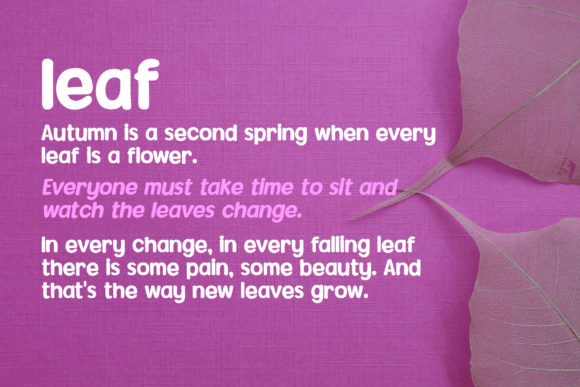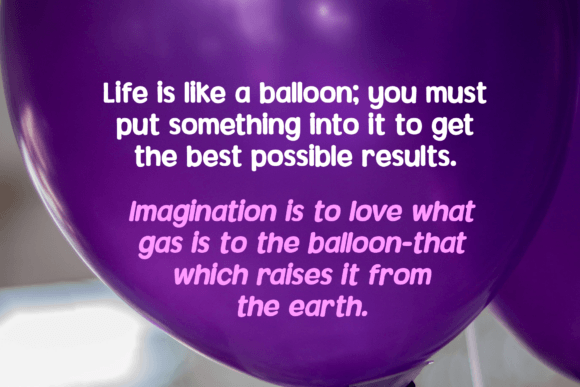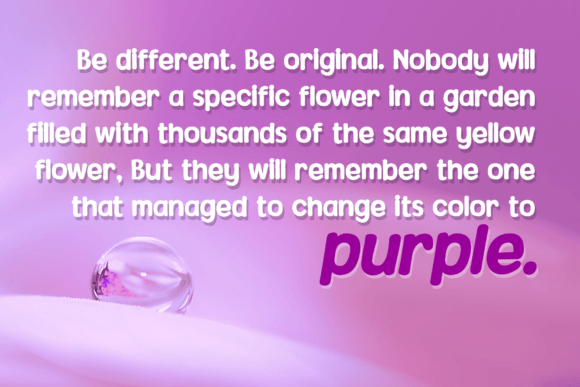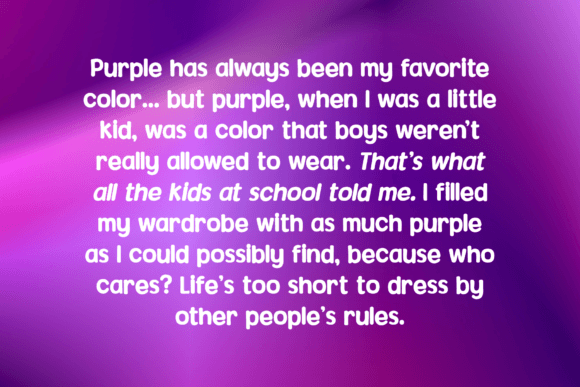
About Alvina Font
Introducing “Alvina,” a font meticulously crafted for text display purposes, drawing inspiration from handwritten styles. This font offers a perfect blend of simplicity, cleanliness, and a touch of coolness, making it ideal for creating logos, branding materials, and promotional content. “Alvina” brings a modern and robust impression to your design, making it a suitable choice for the main text or header text on websites, layout designs, and various promotional materials.
With its modern and strong aesthetic, “Alvina” is well-suited for blog titles, headers, promotional text, calls to action, and more. Its versatility makes it adaptable to a wide range of design applications where a clean and contemporary look is desired.
In summary, “Alvina” is a font designed to provide a clean and modern touch to your text displays. Its simplicity and coolness make it an excellent choice for creating logos, branding materials, and promotional content across various platforms. Download “Alvina” now and incorporate this font into your designs to convey a modern and strong visual impression.